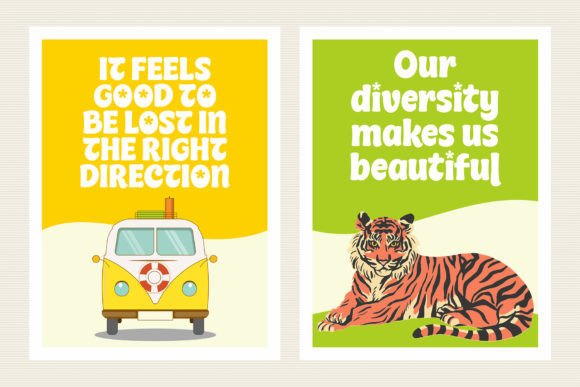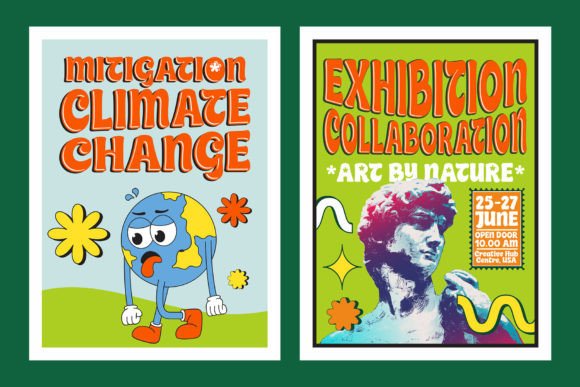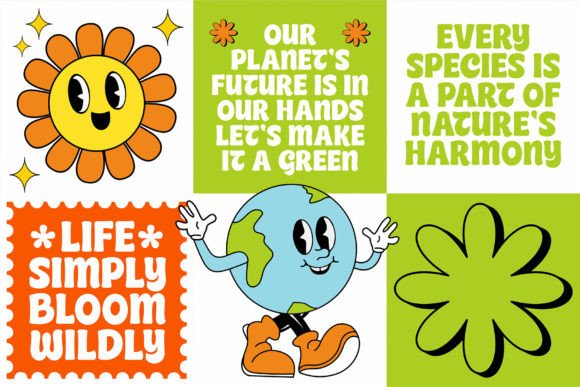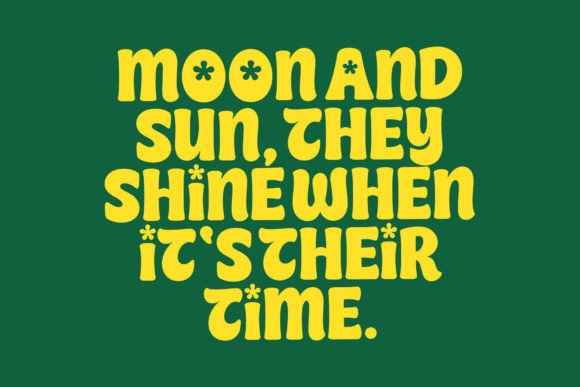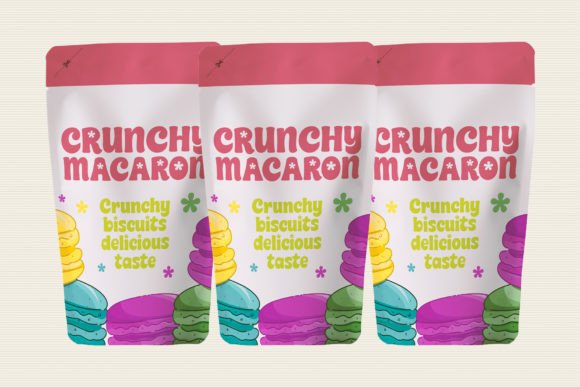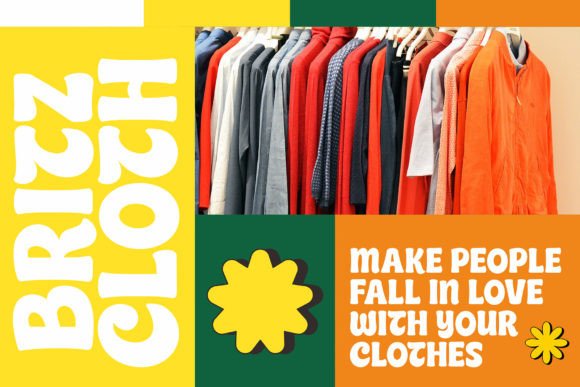
Introduction to Mantra Rimba Font Font
Fonts play a crucial role in design, and the Mantra Rimba Font font is a typeface that brings both character and versatility to any project. Whether you’re working on a branding project, a website, or a print design, the Mantra Rimba Font font offers a unique style that can elevate your work.
Introducing Mantra Rimba Font: Where Nature’s Magic Meets Readability, inspired by the beauty that surrounds us.
While it’s inspired by nature’s whimsy, we haven’t forgotten the basics This font ensures your message is clear, making it perfect for a wide range of creative projects.
Key Features of Mantra Rimba Font Font
Why Choose Mantra Rimba Font Font?
The Mantra Rimba Font font is more than just a typeface – it’s a design tool that helps you communicate your message with style and clarity. Its unique character set and versatile design make it suitable for a wide range of applications, from elegant invitations to bold headlines.
With its carefully crafted letterforms and balanced proportions, the Mantra Rimba Font font ensures readability and visual appeal across all mediums.
What makes Mantra Rimba Font font special?
The Mantra Rimba Font font stands out with its unique design, exceptional readability, and versatility across various design applications.